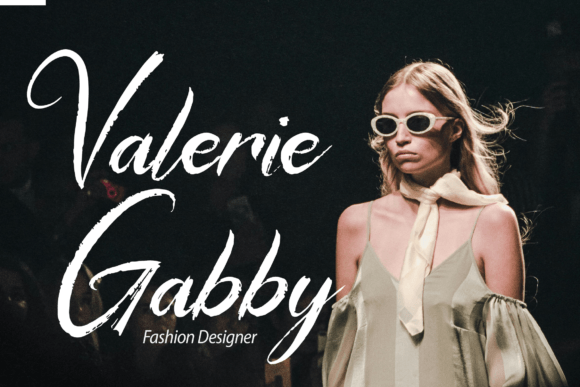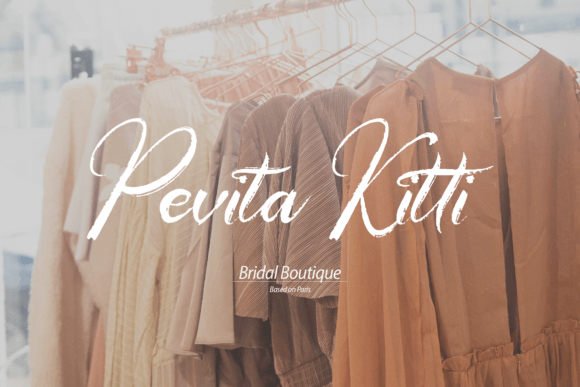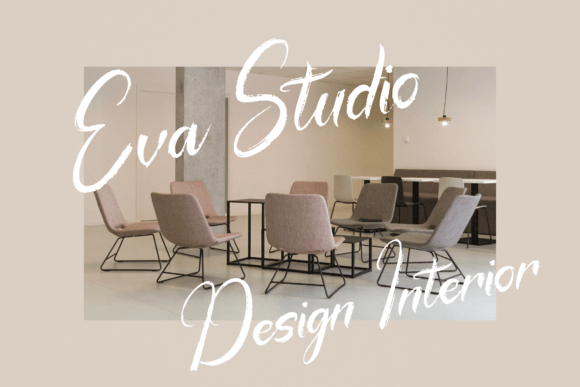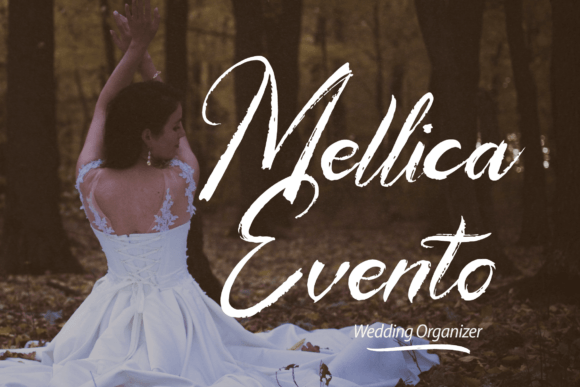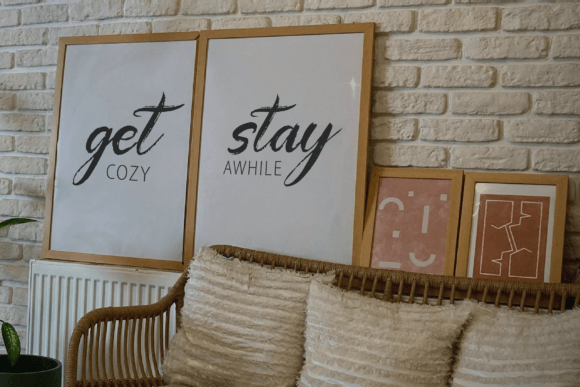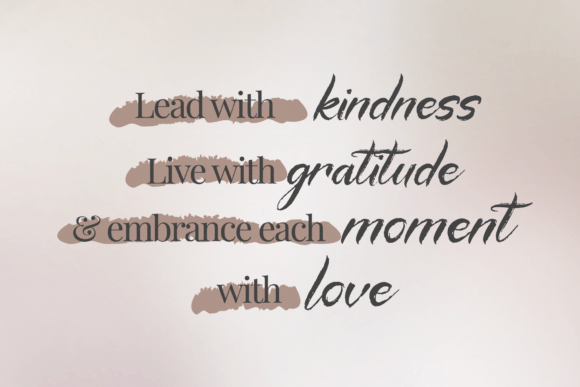
The Designer’s Delight: Alfrenio Font
Have you ever been in the middle of a design project, and suddenly, you’re stuck on finding the perfect font? I recall a recent experience where I was working on a client’s branding project, and I just couldn’t find a font that captured the essence of their elegant and creative brand. That’s when I stumbled upon the stunning Alfrenio font. In this article, we’ll dive into the world of Alfrenio, exploring its features, and how to make the most of it in your designs.
A Personal and Natural Feel
Alfrenio is a stylish handwritten font that looks like it was made with a brush. Its smooth, flowing design gives it a personal and natural feel, making it perfect for adding an elegant and creative touch to your work. The font’s unique charm is sure to make your designs stand out from the crowd.
What I Love About Alfrenio ✨
- 💫 Unique and elegant handwritten design
- ✅ Smooth and flowing strokes
- 🎨 Perfect for creative and artistic projects
- 🌈 Great for branding, packaging, and advertising designs
- ⚠️ Limited use for body text due to its elegant and cursive nature
- 🤔 May not be suitable for very formal or corporate designs
- Experiment with OpenType features, such as ligatures and stylistic alternates, to add more creativity to your design.
The Story Behind Alfrenio
Alfrenio was designed with the intention of creating a font that captures the essence of elegance and creativity. Its unique design is inspired by traditional brush calligraphy, with smooth and flowing strokes that give it a personal and natural feel. The font’s creator aimed to produce a font that’s both stylish and versatile, making it perfect for a wide range of design projects.
| Font Name | Alfrenio Font |
| Author | Gracetypestudio |
Q: What type of projects is Alfrenio best suited for?
Alfrenio is perfect for creative and artistic projects, such as branding, packaging, advertising, and editorial designs.
Q: Can I use Alfrenio for body text?
While Alfrenio is a beautiful font, it’s not recommended for body text due to its elegant and cursive nature. It’s best used for headlines, titles, and short paragraphs.